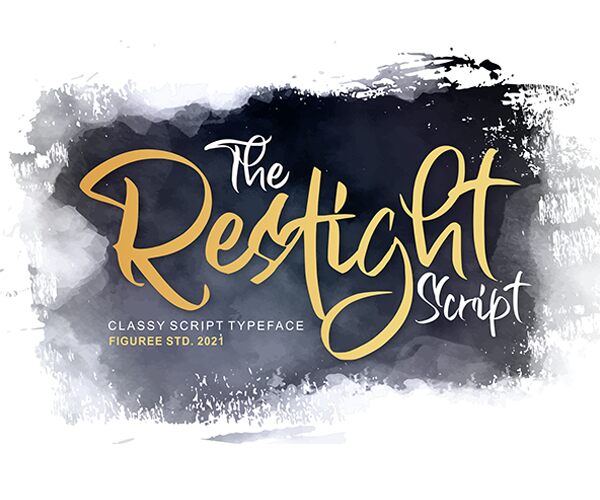
Restight, a captivating handwritten font by Figuree Studio, adds an artistic touch to any project. With its semi-light weight, this versatile typeface is perfect for creating elegant invitations, stylish logos, and captivating social media graphics. Its flowing strokes and unique letterforms bring a sense of authenticity to branding materials and editorial designs. Whether you're designing wedding stationery or crafting eye-catching blog headers, Restight will elevate your projects with its seamless blend of sophistication and playfulness. Let your creativity flourish as this delightful font breathes life into your next design endeavor.